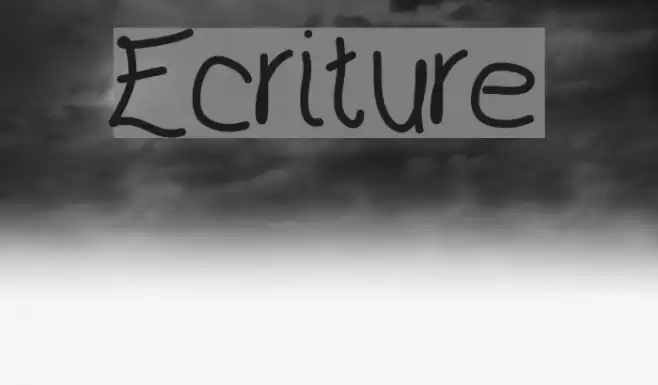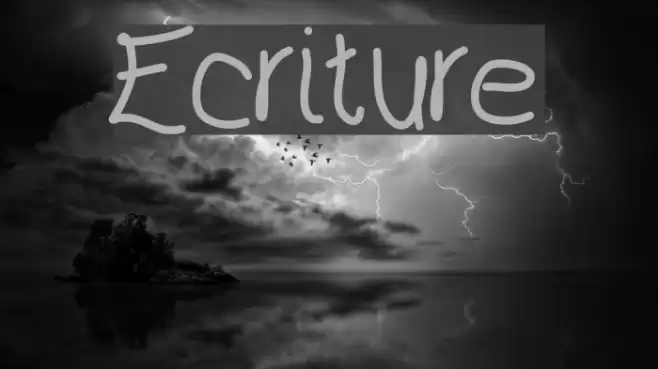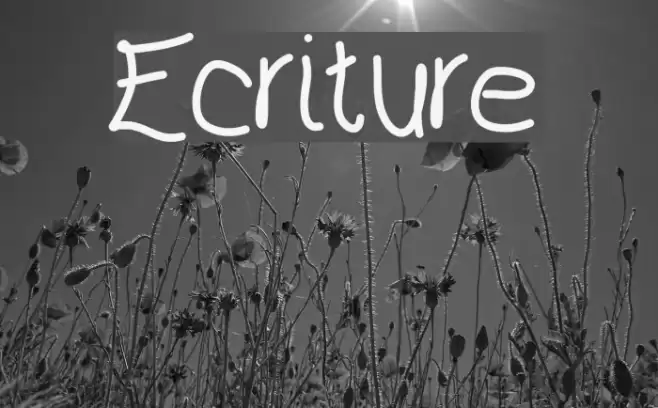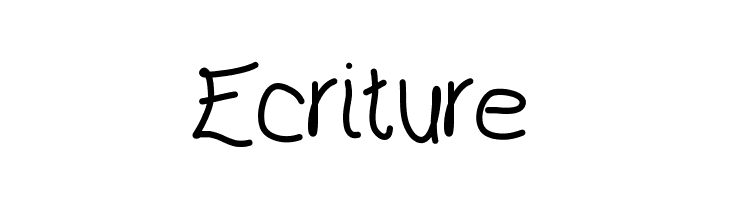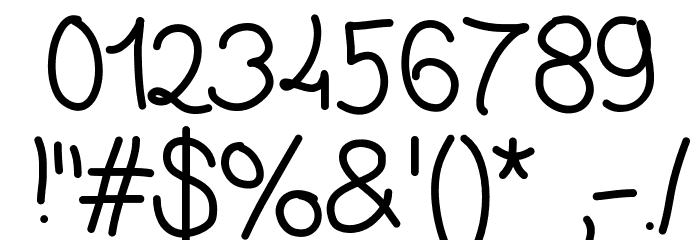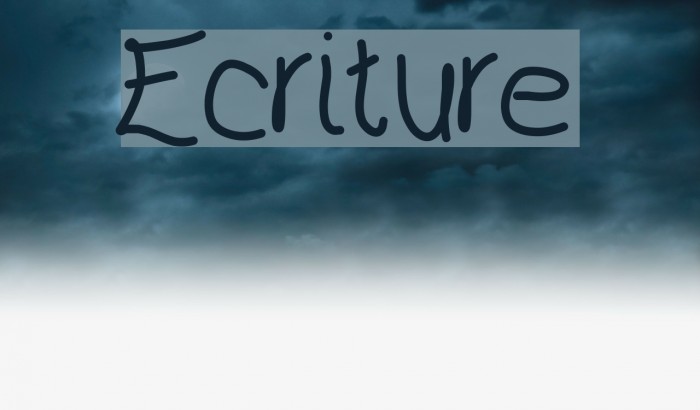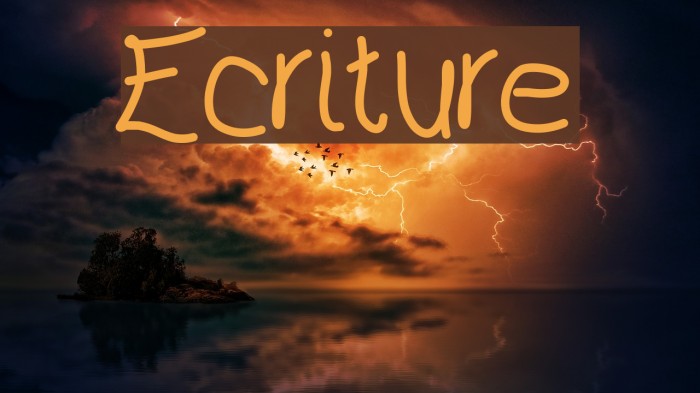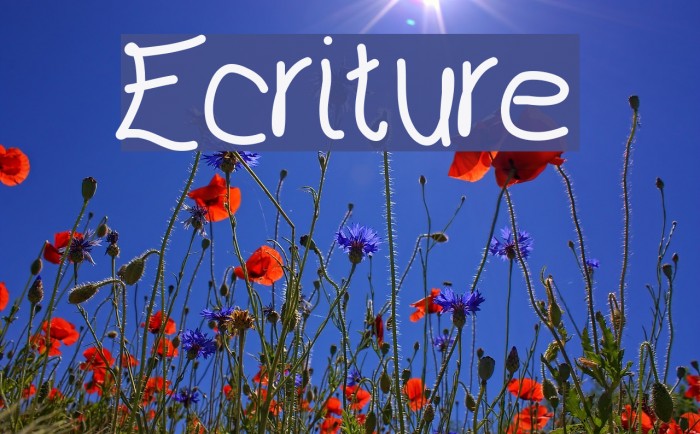
Ecriture Font
Ecriture Description
This font features a playful and casual handwritten style, characterized by its smooth, flowing lines and slightly irregular shapes. The letters have a natural, organic feel, reminiscent of a personal note or a friendly invitation. The uppercase and lowercase letters maintain a consistent style, with rounded edges and a slight slant that adds to the informal aesthetic. The numerals and special characters are designed to match the overall look, ensuring a cohesive appearance across all text. This font's charm lies in its simplicity and approachability, making it suitable for a variety of creative projects.
A playful, handwritten font with smooth, flowing lines and a casual style from Handwritten fonts.
- Proposed Projects: Ideal for greeting cards, invitations, personal notes, and creative branding projects.
- Overall Style: Casual, Playful
- Use Case: Logos, Invitations, Greeting Cards